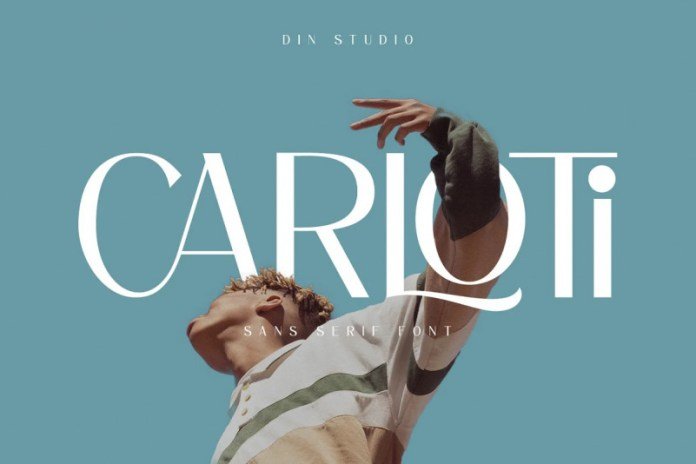
Carloti Font
Carloti Font is a stylish typeface created by Din Studio with alternates in each alphabets! This font fits in any project. The ideal font for social media banners; posts, and ads, printed quotes, t-shirt designs, packaging, or even as a modern text overlay to any background image.